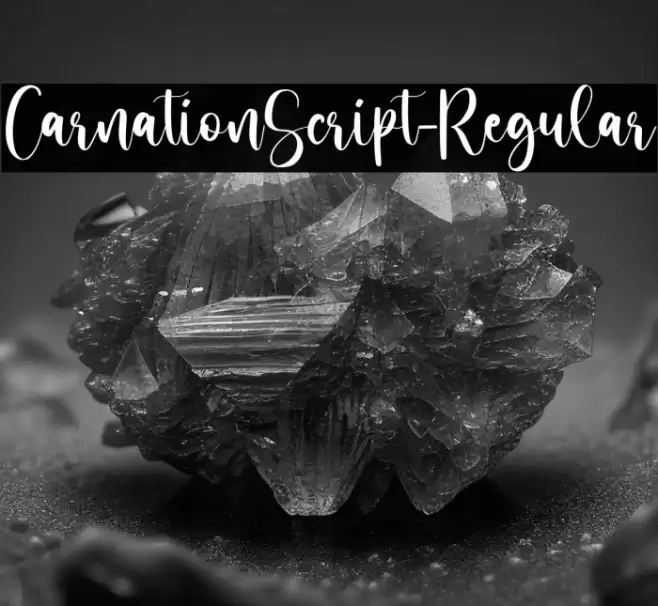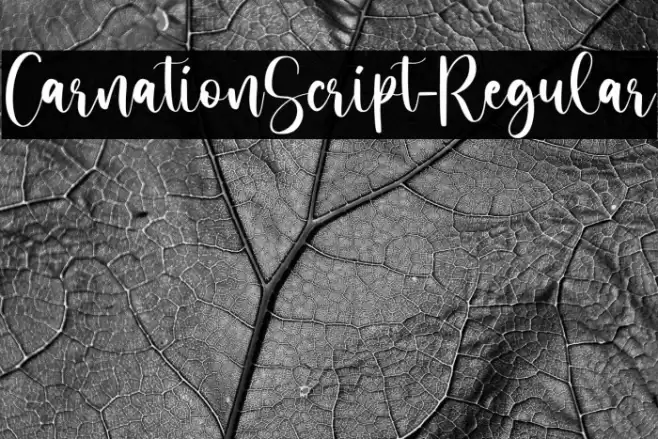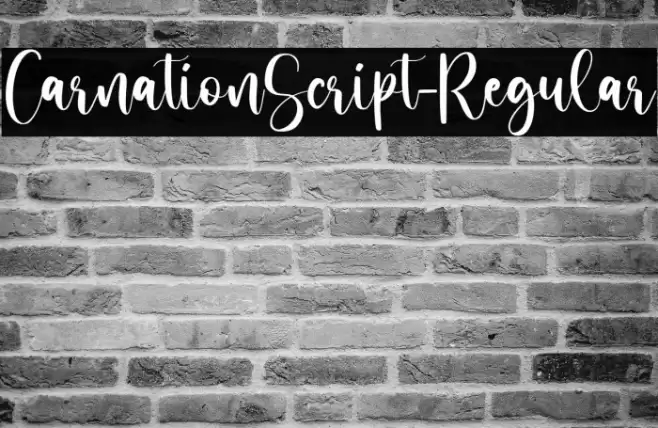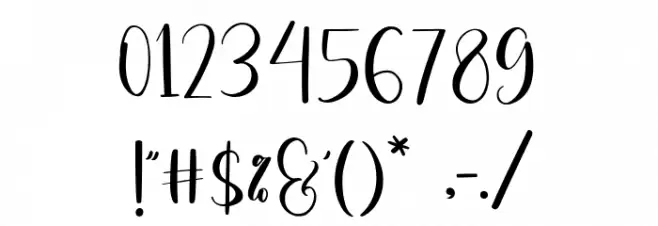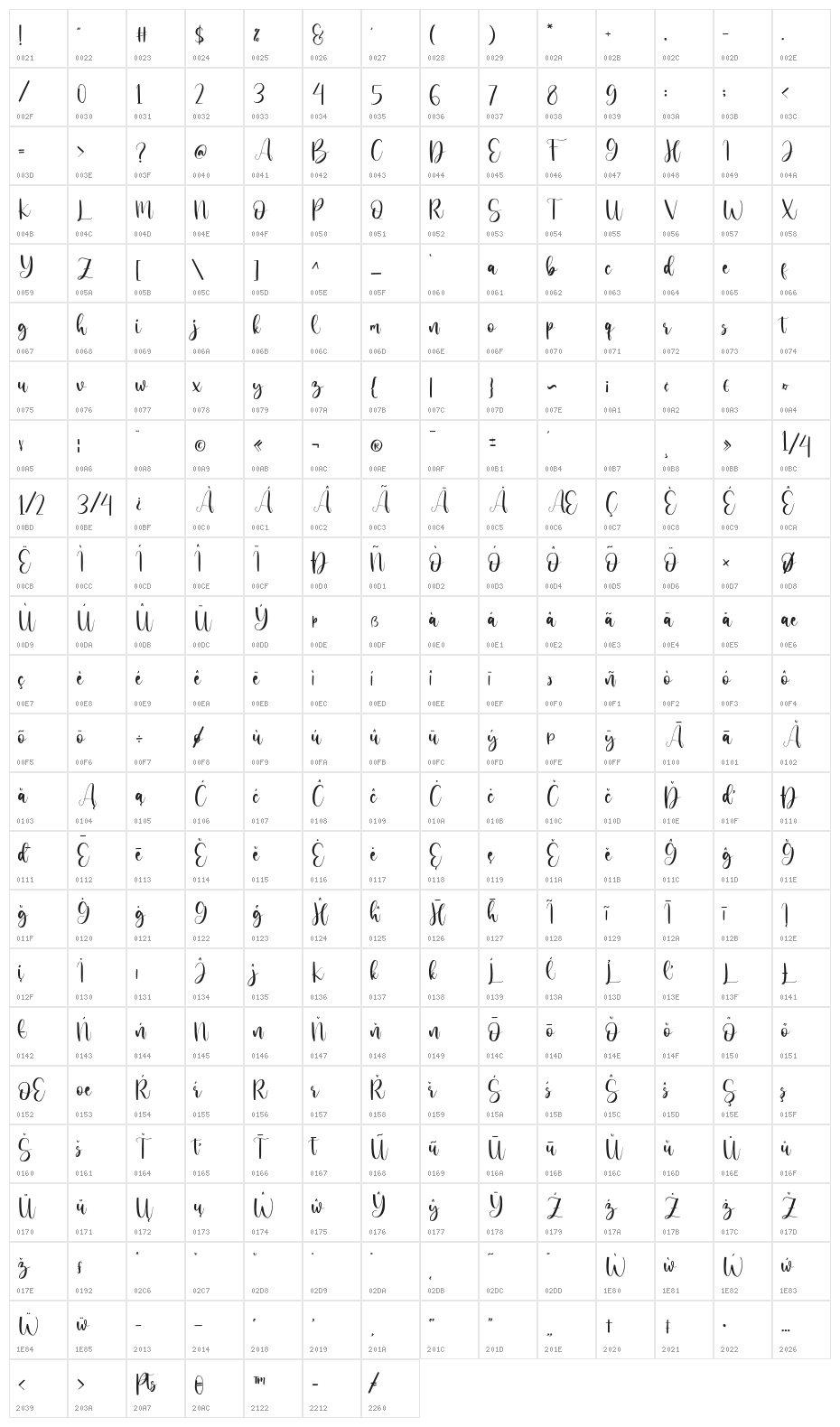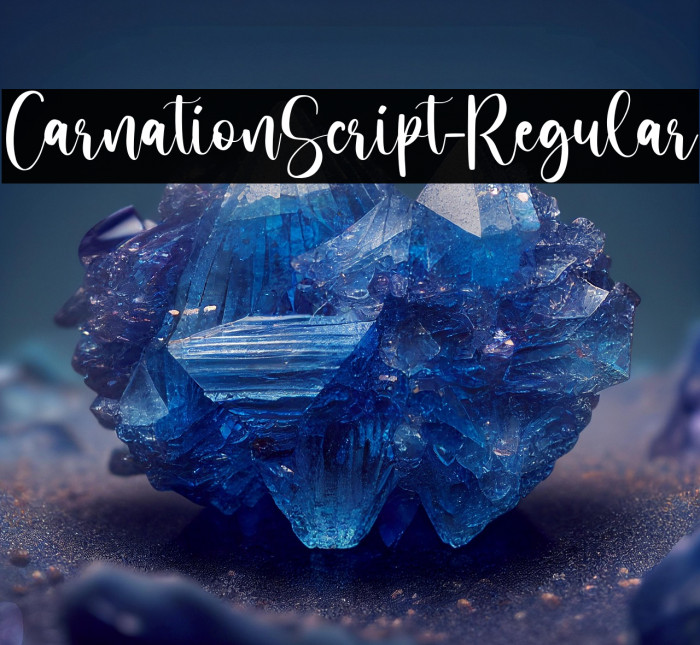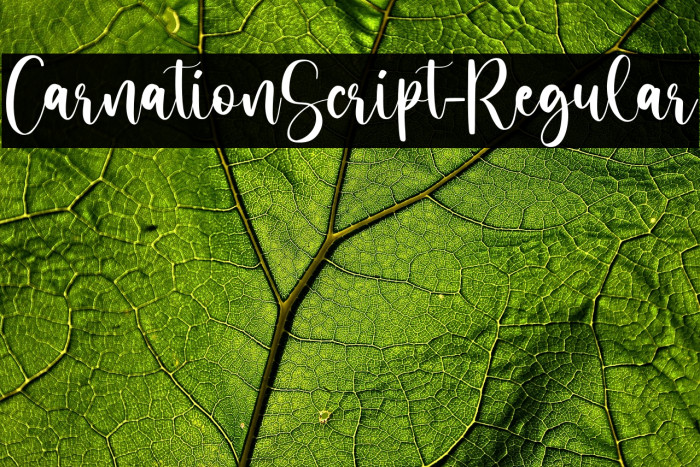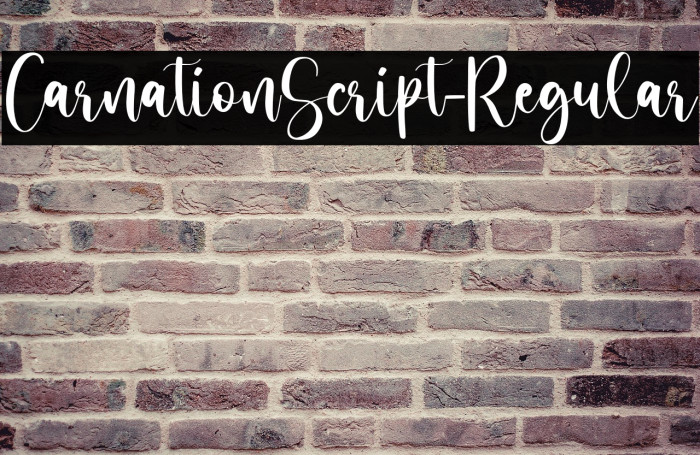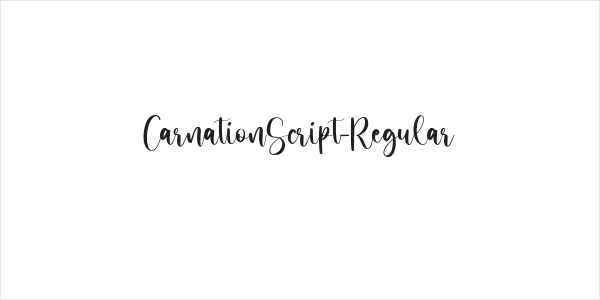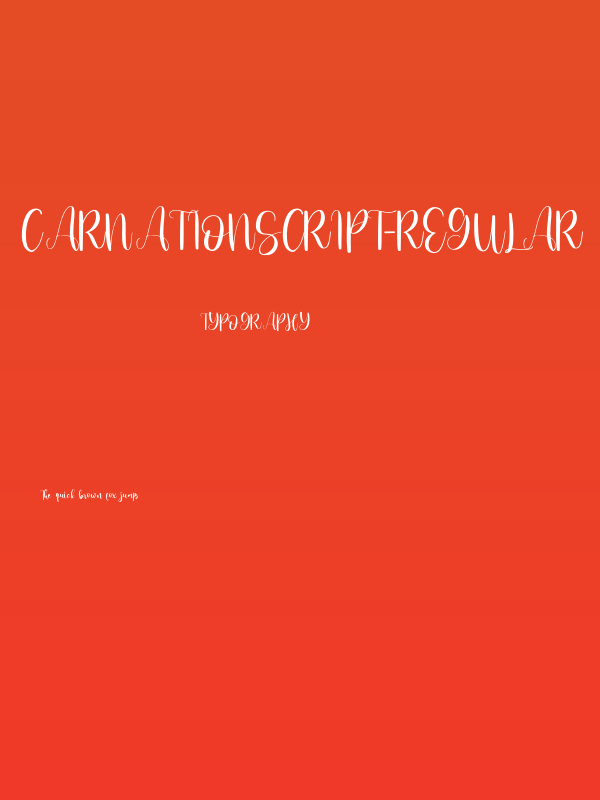
CarnationScript-Regular Font
CarnationScript-Regular Description
This elegant script font features flowing, interconnected letters that exude a sense of sophistication and charm. The uppercase letters are bold and sweeping, with dramatic flourishes that add a touch of flair. The lowercase letters maintain a consistent style, with smooth curves and loops that enhance readability while retaining a decorative appeal. The numerals are distinct and stylish, complementing the overall aesthetic. Special characters are thoughtfully designed to match the font's graceful style, making it versatile for various uses. The font's high contrast in stroke thickness adds to its dynamic and eye-catching appearance.
A sophisticated and elegant script font with flowing, interconnected letters and high contrast from Regular fonts.
- Proposed Projects: Ideal for wedding invitations, branding, greeting cards, and elegant packaging designs.
- Overall Style: Elegant
- Use Case: Logos, Invitations, Decorative text